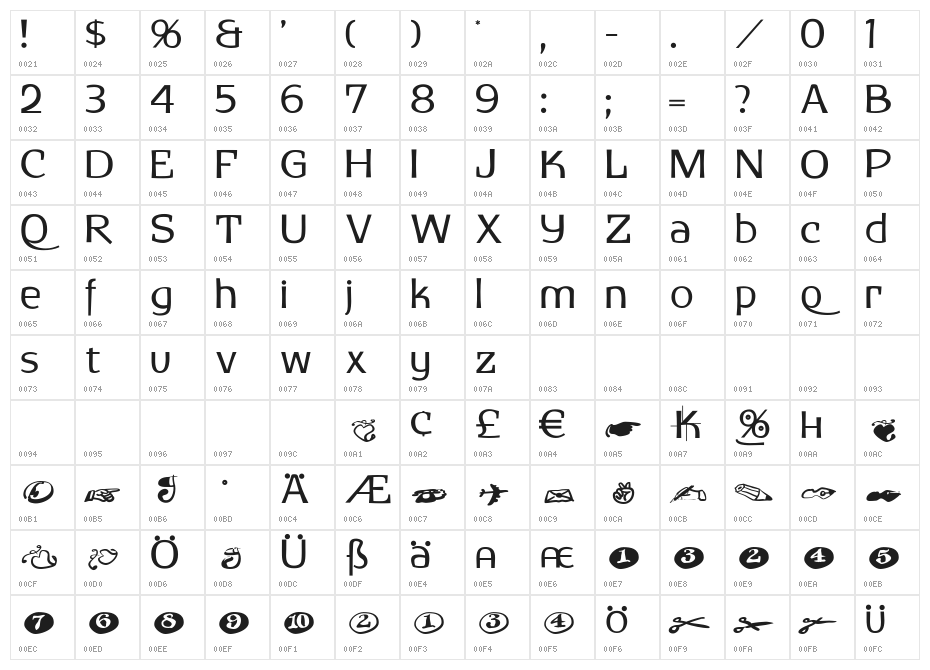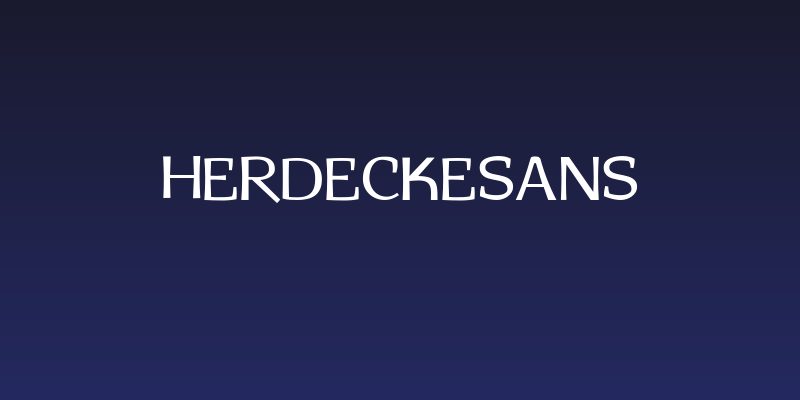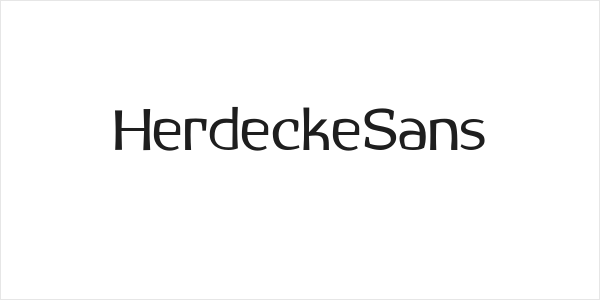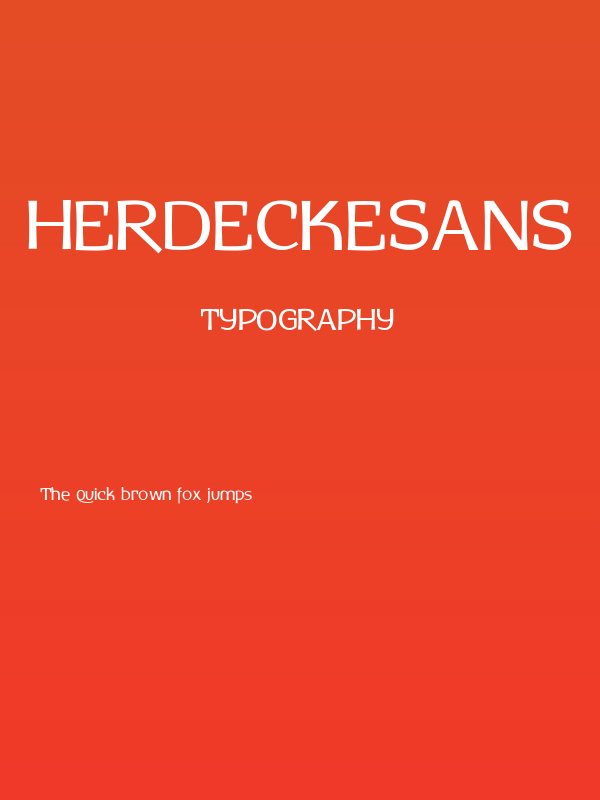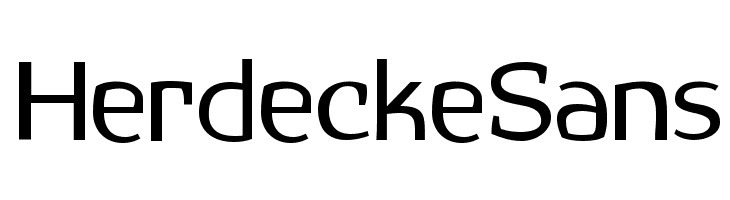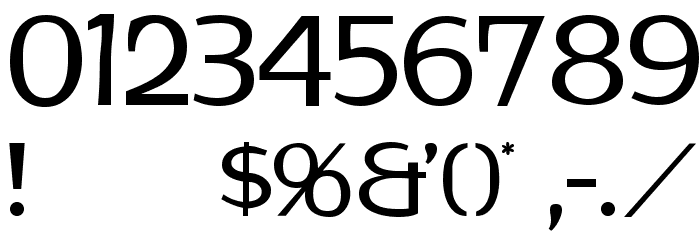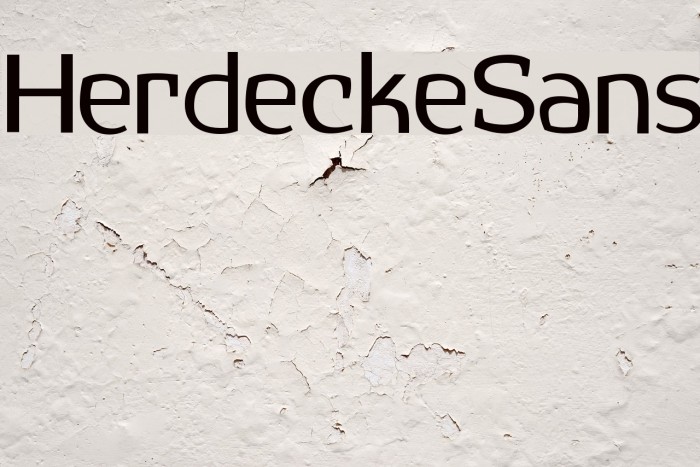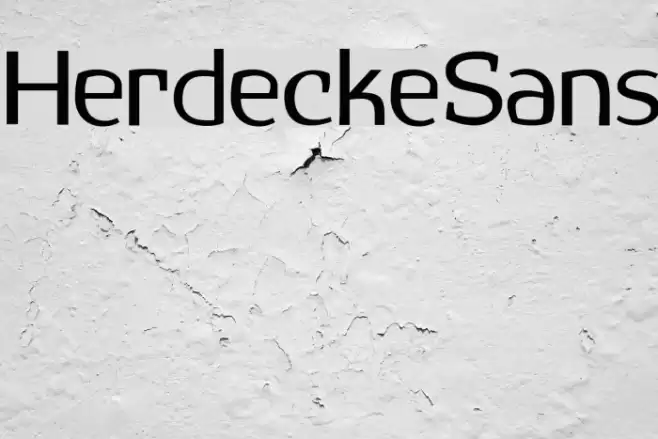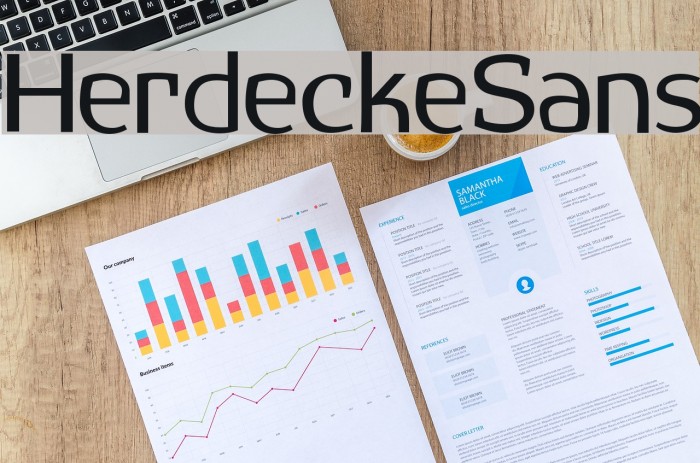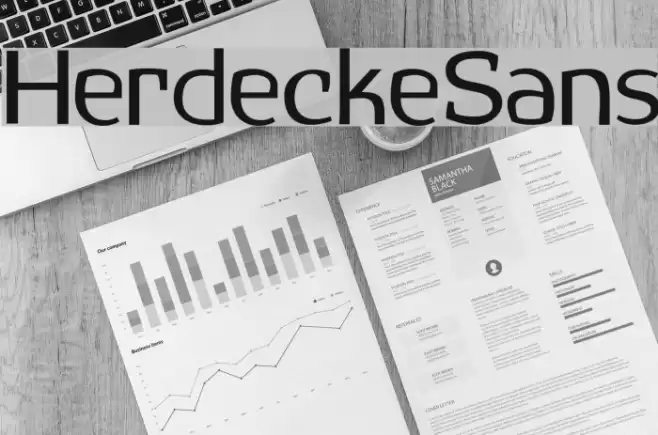
HerdeckeSans Font
This font features a modern sans-serif design with clean, geometric shapes and a slightly condensed appearance. The uppercase letters are bold and striking, while the lowercase letters maintain a consistent flow with rounded edges. The numerals are clear and legible, making them suitable for various applications. Special characters are distinct and well-integrated into the overall design. The font's uniform stroke width and minimal contrast contribute to its contemporary and versatile style, making it ideal for digital and print media.
| Use Case | Headlines, Logos, Digital media |
| Proposed Projects | Ideal for branding, web design, advertising, and editorial layouts. |